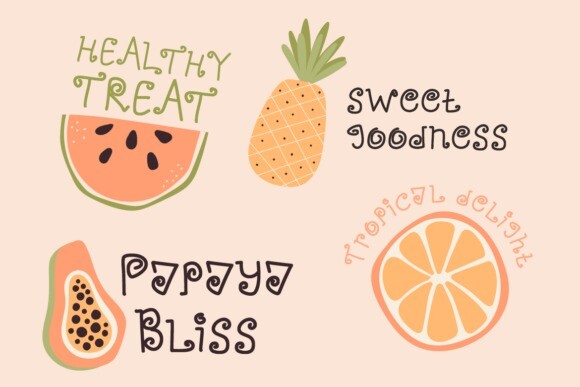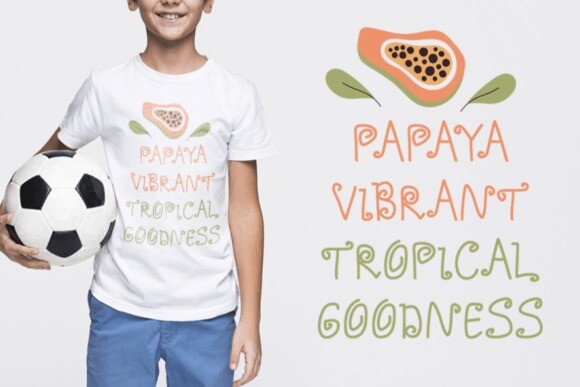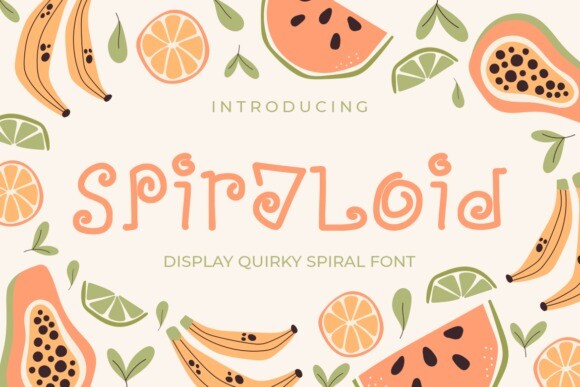
Spiraloid Font
Spiraloid Font – Display Quirky Spiral Font, a unique typeface that brings a twist of fun to any project. This playful font features rounded letters with elegant spiral designs, perfect for capturing the imagination of both children and adults. Each character in Spiraloid is crafted with a bold yet cute aesthetic, making it ideal for designs that require a touch of whimsy without sacrificing sophistication. The handdrawn quality resonates with the charm of handwriting, while its colorful and sketch-like appearance adds a personal touch to your creative work.
Spiraloid is not just another font; it’s a statement piece that turns words into visual delights. Whether you’re designing logos, branding materials, invitation cards, or packaging, this font ensures your message stands out with style and character. It’s especially suited for crafting eye-catching titles for books, movies, greeting cards, stickers, and magazines. With its quirky spirals and playful boldness, Spiraloid promises to infuse your designs with life and make them memorable.